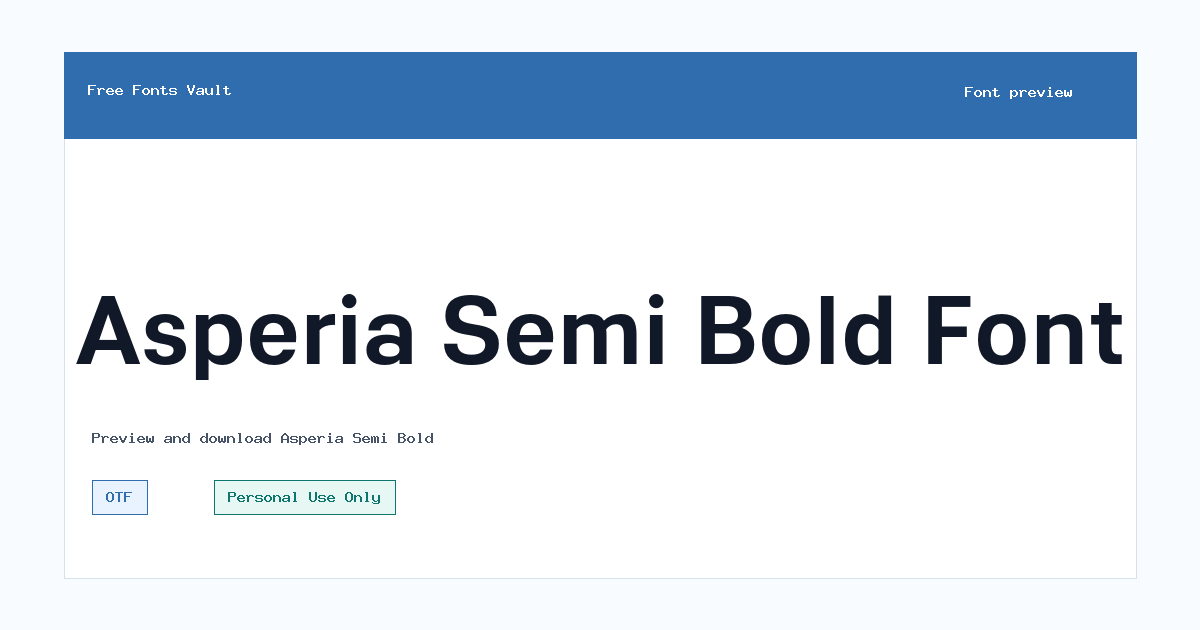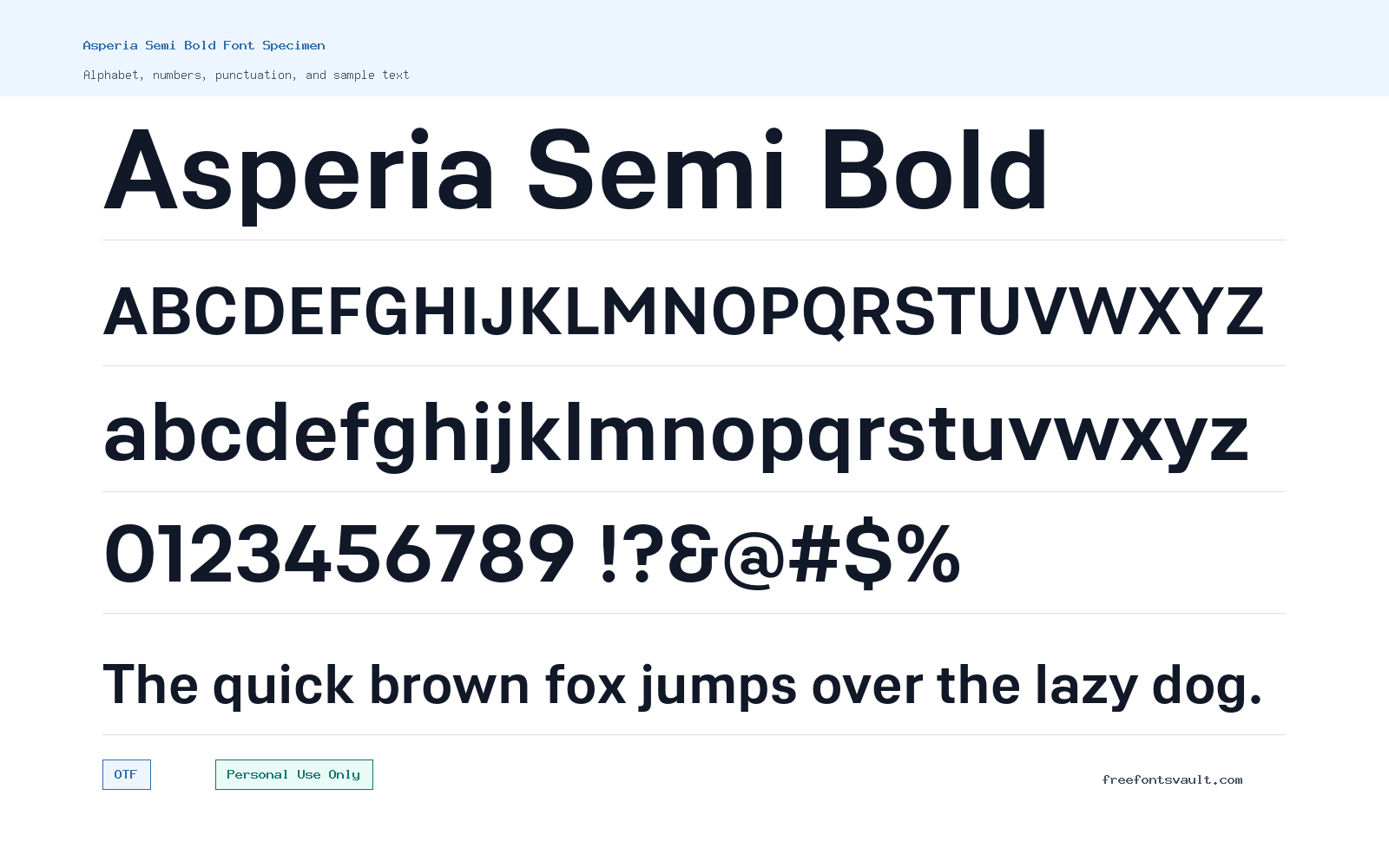
Asperia Semi Bold
Asperia Semi Bold font.
Asperia Semi Bold is a semi-bold style from the Asperia font family by Savchuk Nikolay. It is offered as an OTF font and is marked Personal Use Only, so it is best treated as a trial or personal-project typeface unless you confirm broader rights from the creator.
About Asperia Semi Bold
Asperia Semi Bold gives you a stronger weight than a regular text face without moving into an extra-heavy look. The name and file style point to a clean sans serif direction, with enough weight for titles, labels, and short blocks where you want a firmer voice. Use the preview box to test the words you plan to set, because spacing, uppercase forms, numbers, and punctuation can change how a font feels in real designs.
This style is most useful when you need a readable display weight rather than a delicate decorative font. Try it in headings, button text, simple posters, social graphics, and small brand mockups for personal study. For longer paragraphs, test line height and size carefully; semi-bold fonts can look dense when used across many lines. If you are building a full layout, pair it with a lighter neutral text font so the page keeps clear hierarchy.
- Semi-bold weight suited to short headlines, labels, and interface-style text.
- Sans serif naming in the license text, making it a practical choice for clean, modern-looking personal layouts.
- Personal posters, quote cards, and social media graphics that need firm headline text.
- Website or app mockups where a clear semi-bold label style is useful during design testing.
- Logo studies, title treatments, and branding drafts for non-commercial exploration.